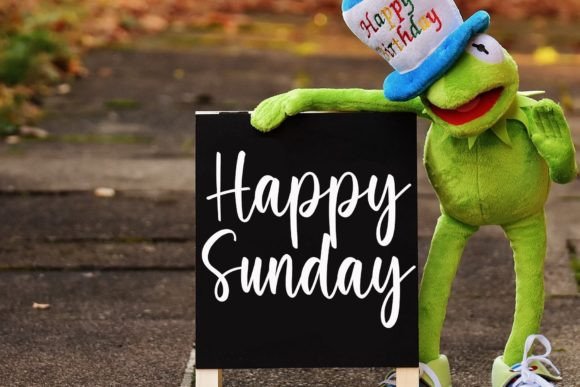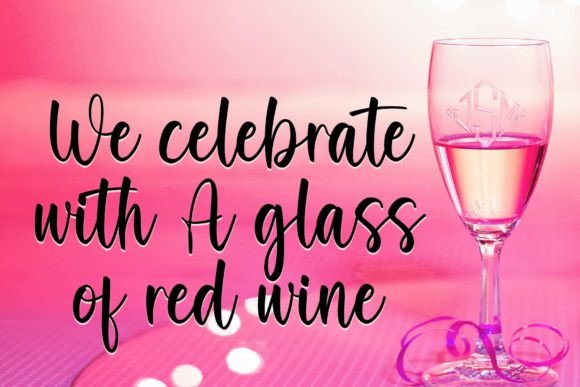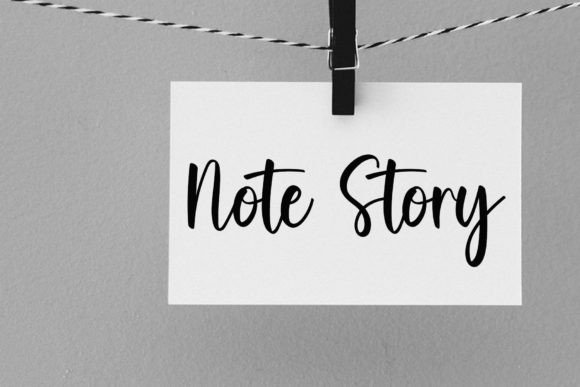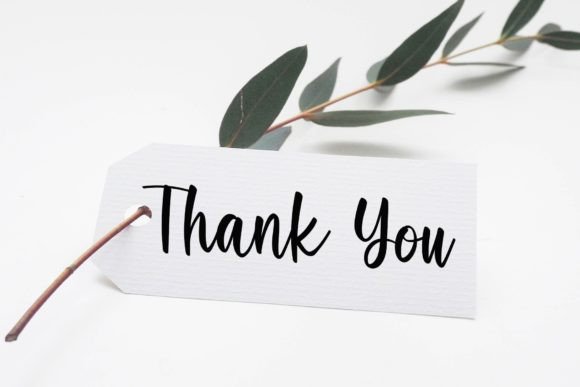
Something Font
About Something Font
“Something” is more than just a font; it’s a fresh and beautiful handwritten typeface crafted for various design purposes. Whether it’s for YouTube banners, cover logo mockups, wedding invitations, ID cards, flyers, or crafts, “Something” is designed to elevate your design projects and contribute to the progress and development of your business.
Imagine “Something” adding its unique charm to your creative endeavors, enhancing the visual appeal of your designs with its fresh and beautiful handwritten style. Let it be the font that brings a touch of simplicity and uniqueness to your projects, setting them apart in a crowded design landscape.
Envision “Something” becoming an essential tool in your design toolkit, offering versatility and a distinct aesthetic to a wide range of applications. Its simplicity and uniqueness make it suitable for a variety of design needs, ensuring that your business can evolve and stand out.
For designs that demand a font with a fresh and contemporary aesthetic, “Something” stands out as a typeface that brings a unique character. Its handwritten style offers a personal touch, making it an excellent choice for projects that require a blend of simplicity and individuality.
In any context where you want to infuse a touch of freshness through typography, “Something” is the font that can make your designs memorable. Let it be the key element that propels your projects forward, making them visually appealing and distinct.
Whether you’re creating digital content, print materials, or branding elements, “Something” is a font that brings a sense of simplicity and uniqueness to your designs. Let it be the font that adds a fresh and contemporary touch to your visual communication.
Embrace “Something” as a valuable asset for your design endeavors, and witness how its simplicity and uniqueness contribute to the progress and development of your business. Let it be the font that transforms your ideas into visually striking and memorable creations.